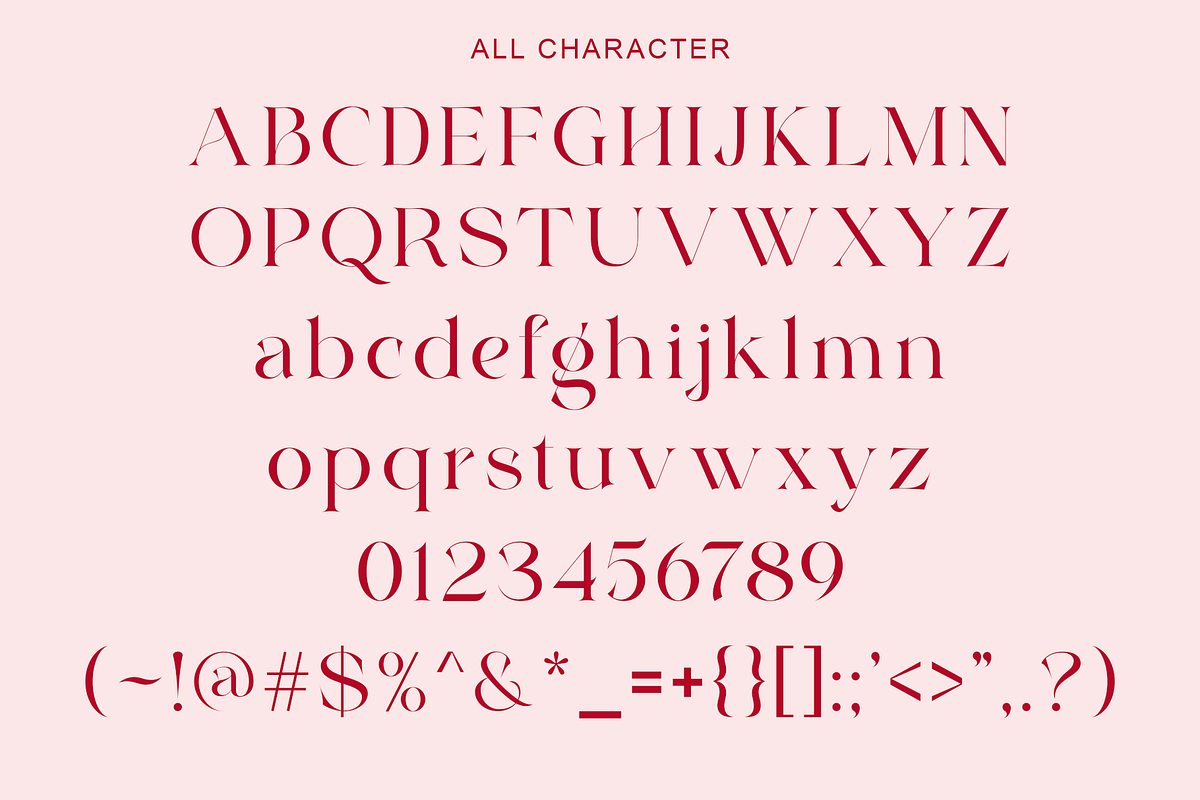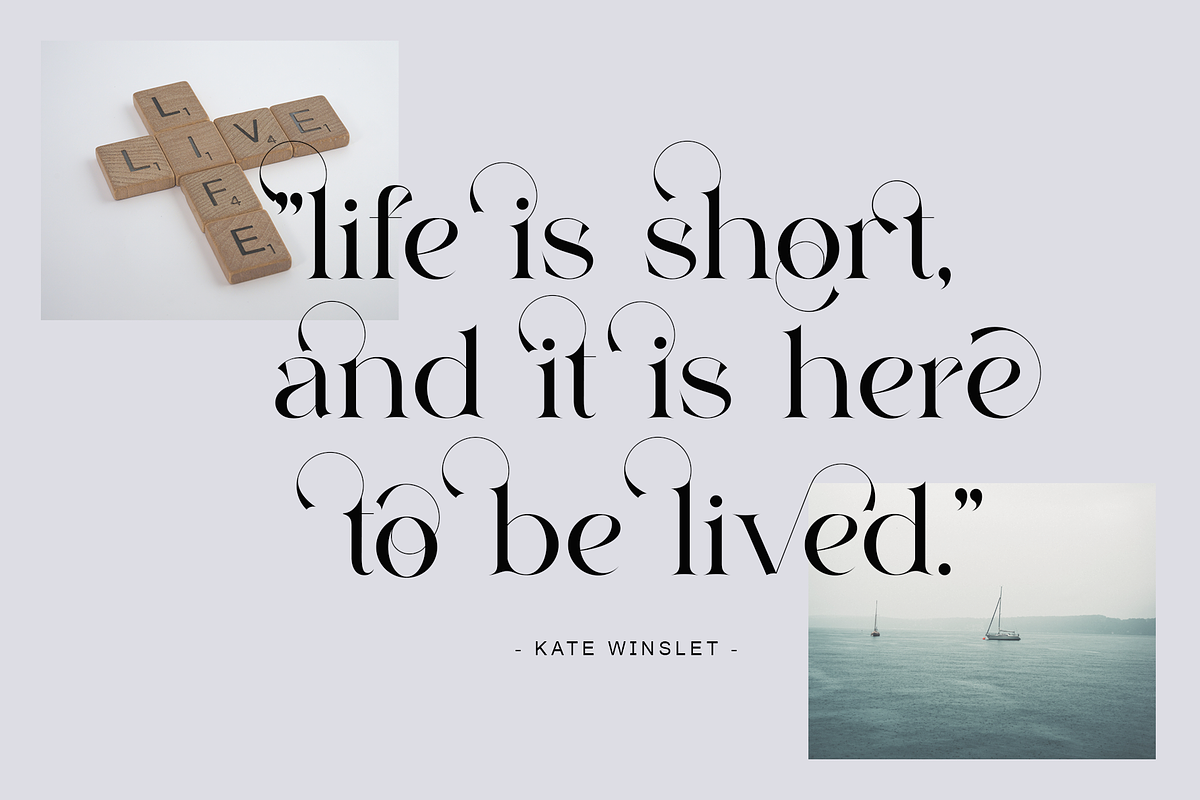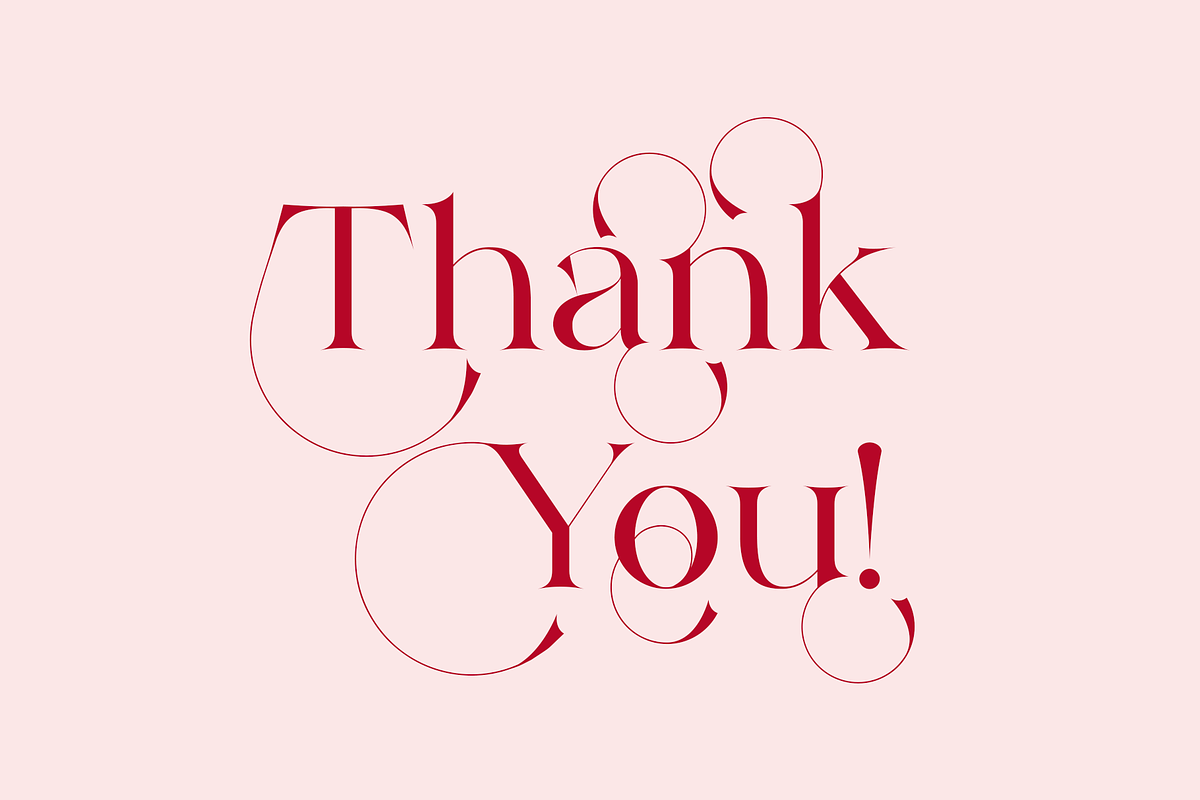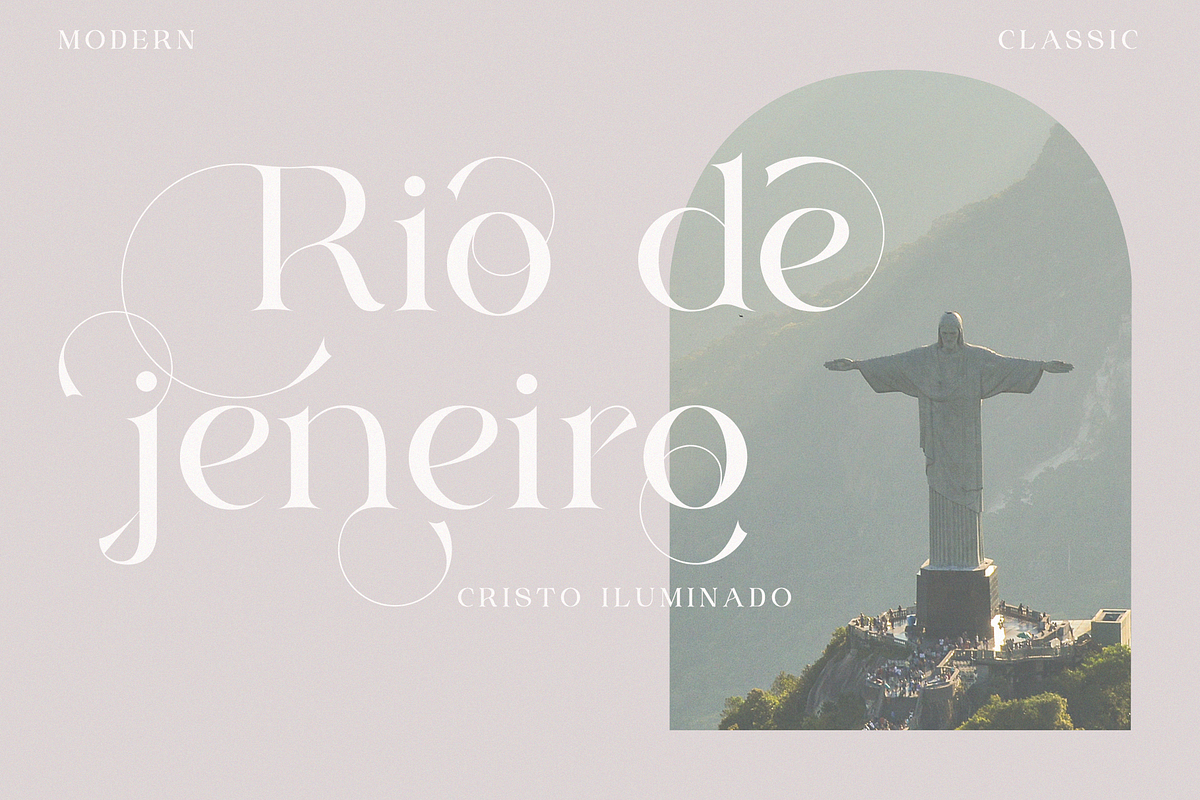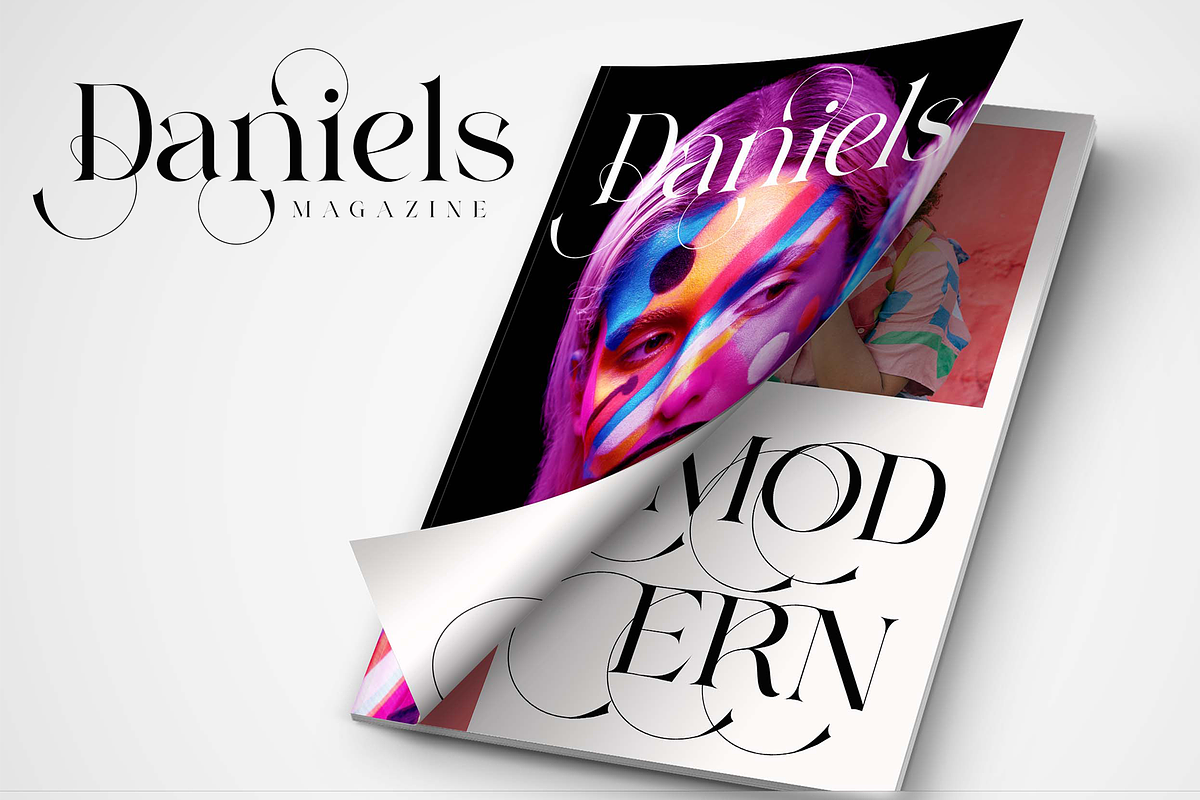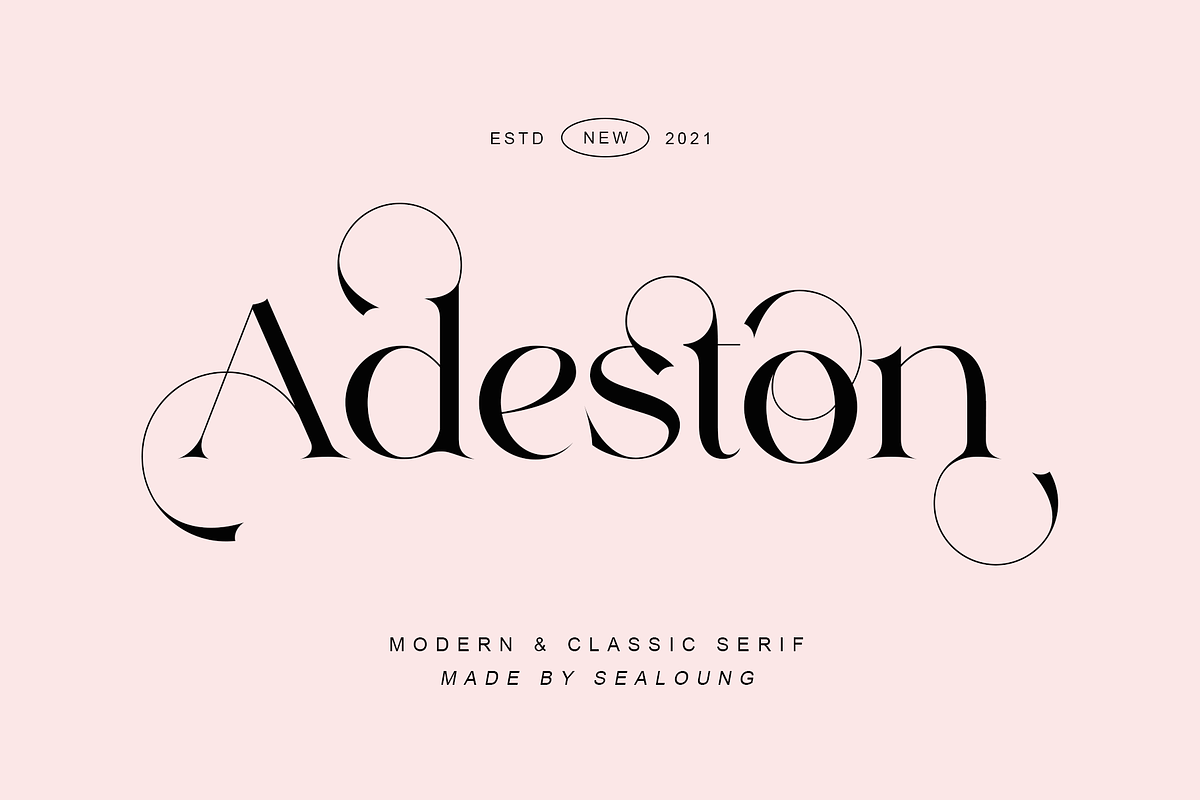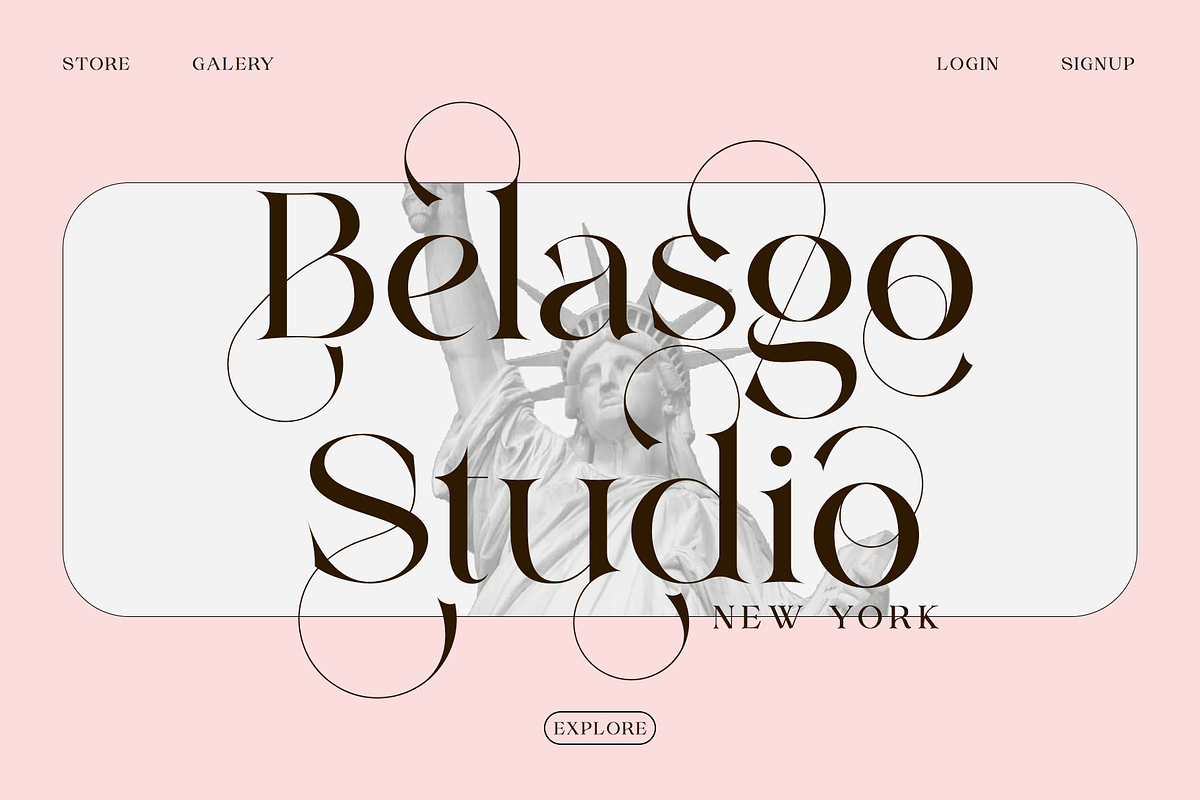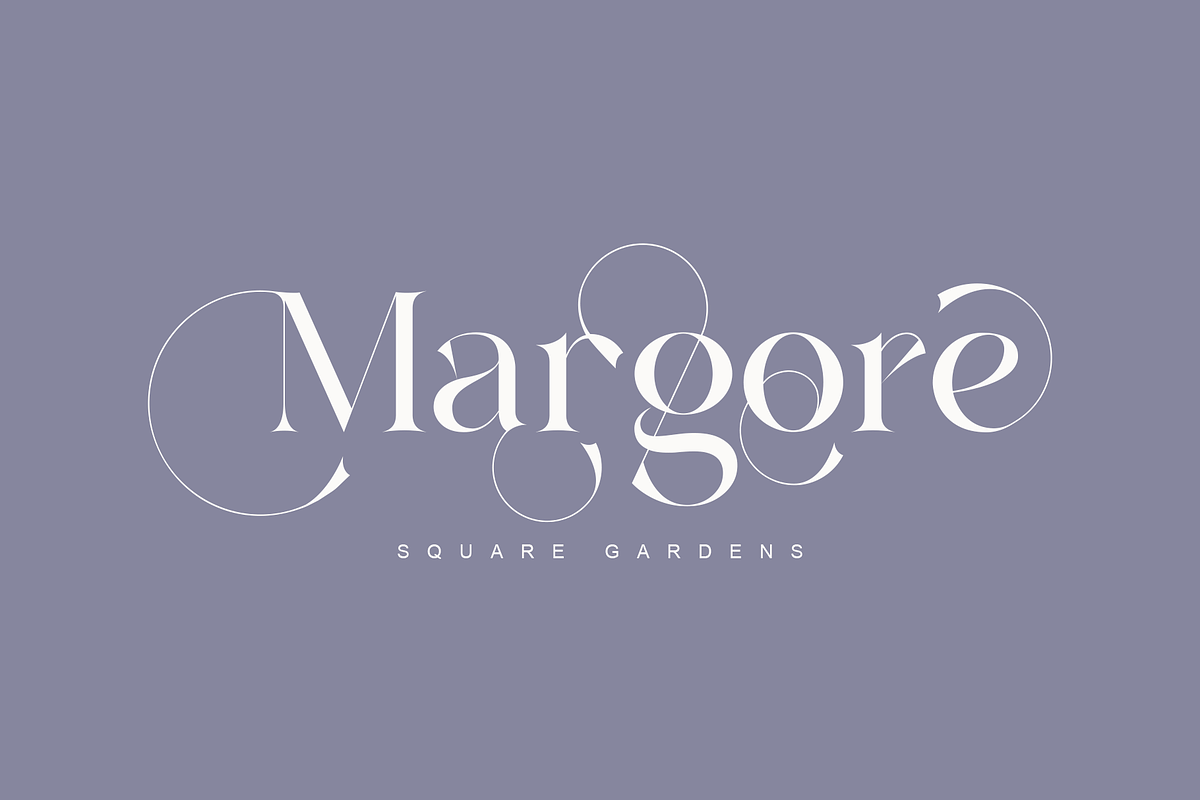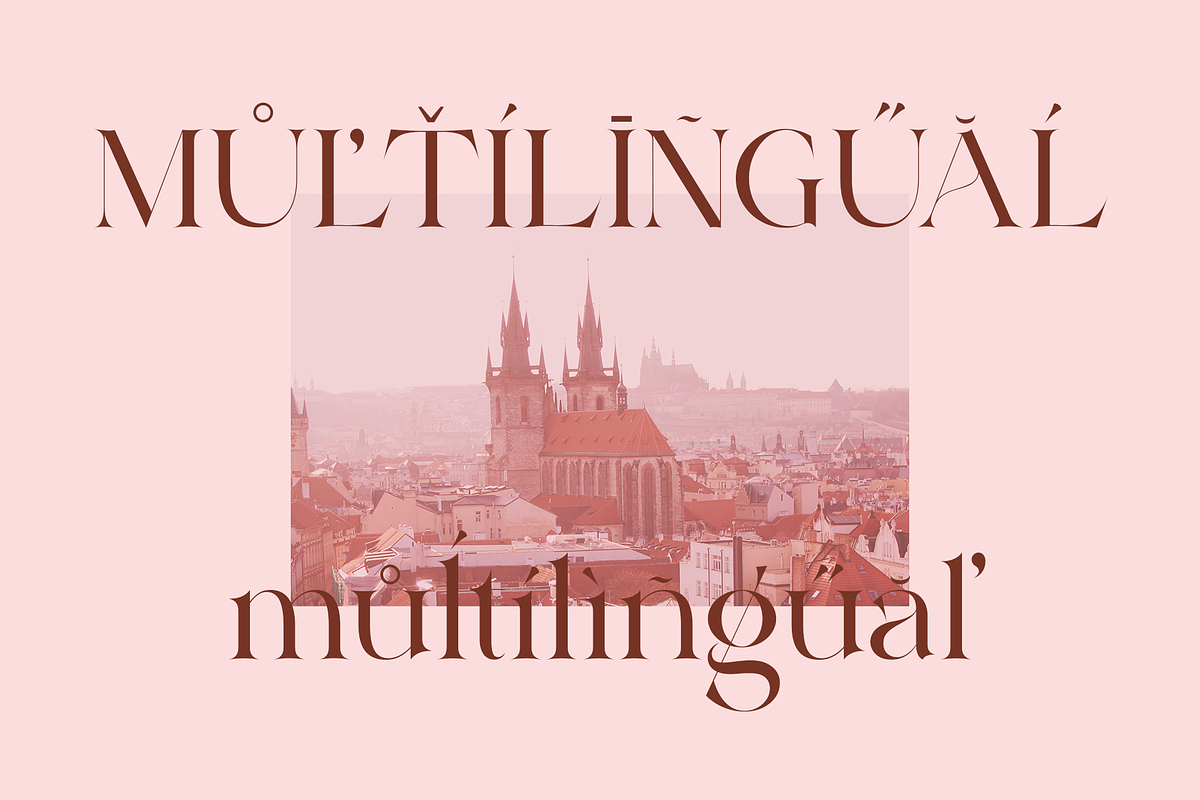
Adeston
Adeston is a modern multilingual serif enhanced by ligatures & alternates.
Adeston is a very versatile font - with it's classic forms and modern features it will cover a wide range of design projects starting from greeting cards to magazines, wedding invitations, websites etc. The amount of alternates is tremendous, from simple stylistic alternates to ligatures and their alternates.
Languages supported: English, German, French, Italian, Spanish, Swedish, Portuguese, Irish, Norwegian, Luxembourgish, Basque, Breton, Corsican, Faroese, Galician, Icelandic.
Adeston includes the full set:
- uppercase and lowercase
- multilingual symbol
- number
- punctuation
- stylish alternates